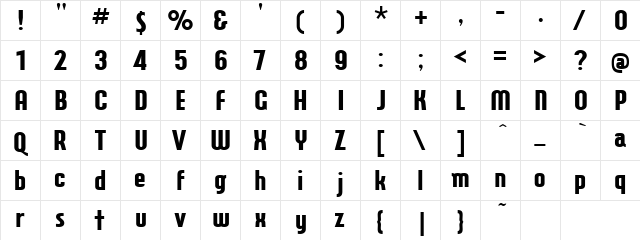
Hf Broadstreet Sw Regular
Design Context for Hf Broadstreet Sw Typeface
Hf Broadstreet Sw is a composed and adaptable typeface that performs quietly and consistently across a wide range of design contexts.